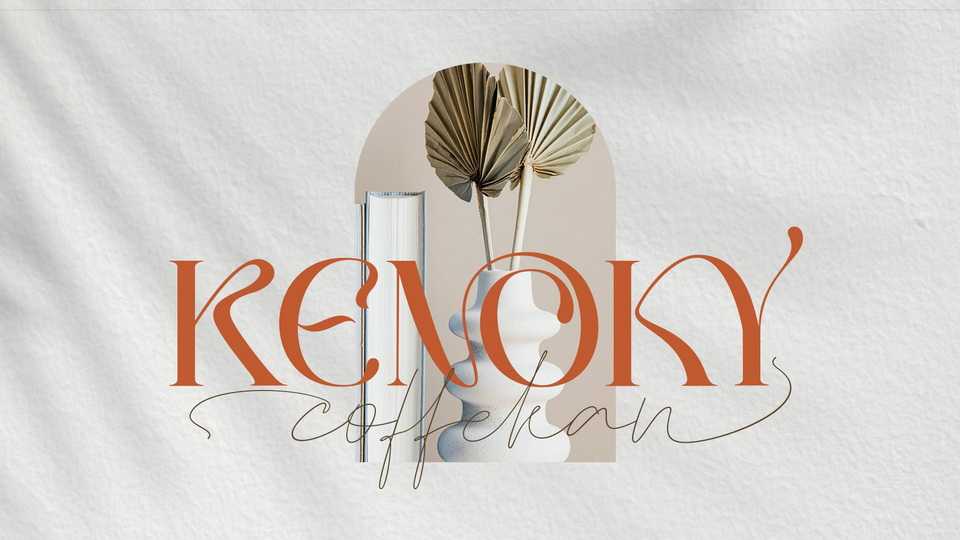
Kenoky Coffekan Font Duo › Fontesk
Download Kenoky Coffekan fonts, a fancy modern display typeface and stylish signature script. The combination Kenoky and Coffekan will create charming, unique, elegant and cool design.